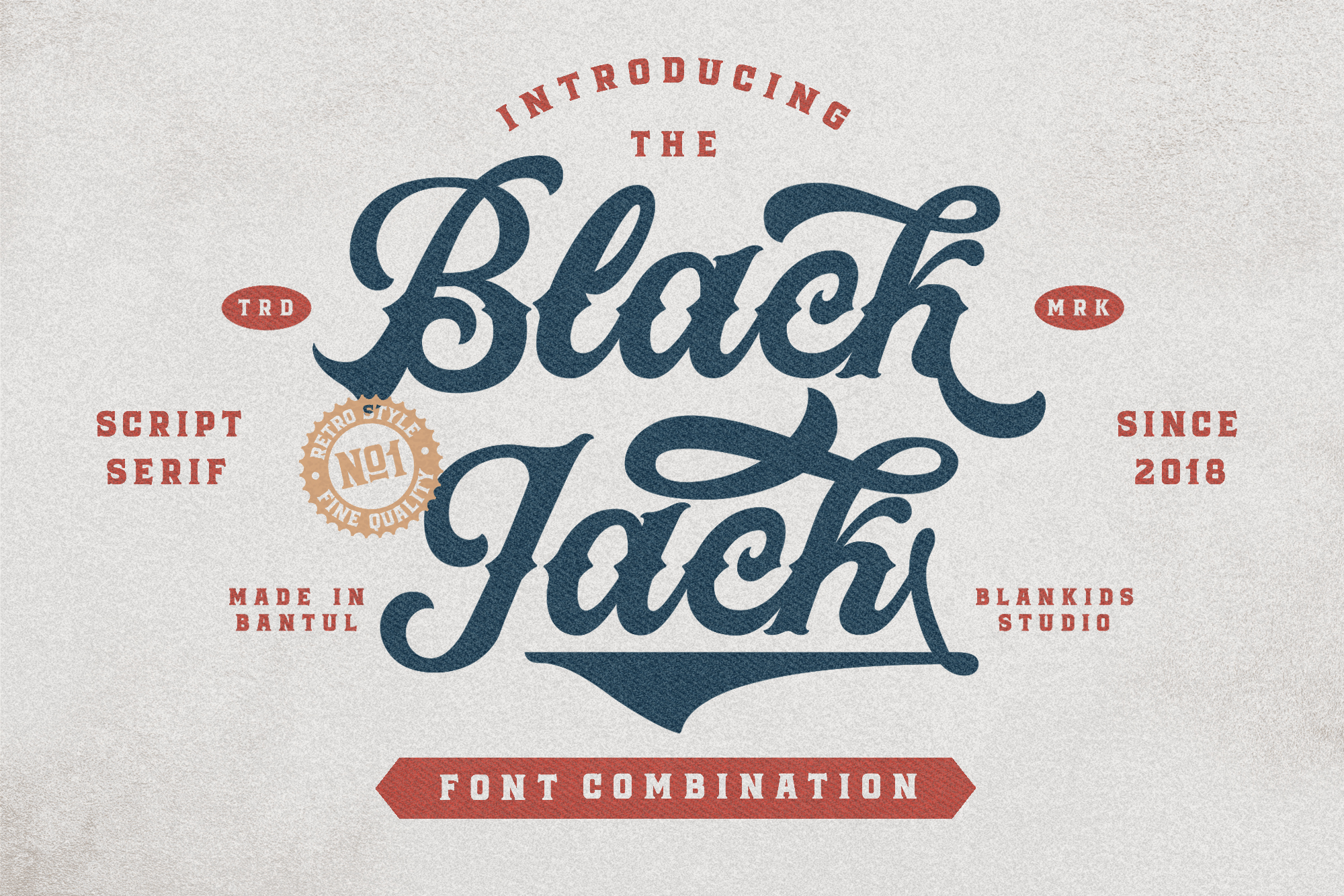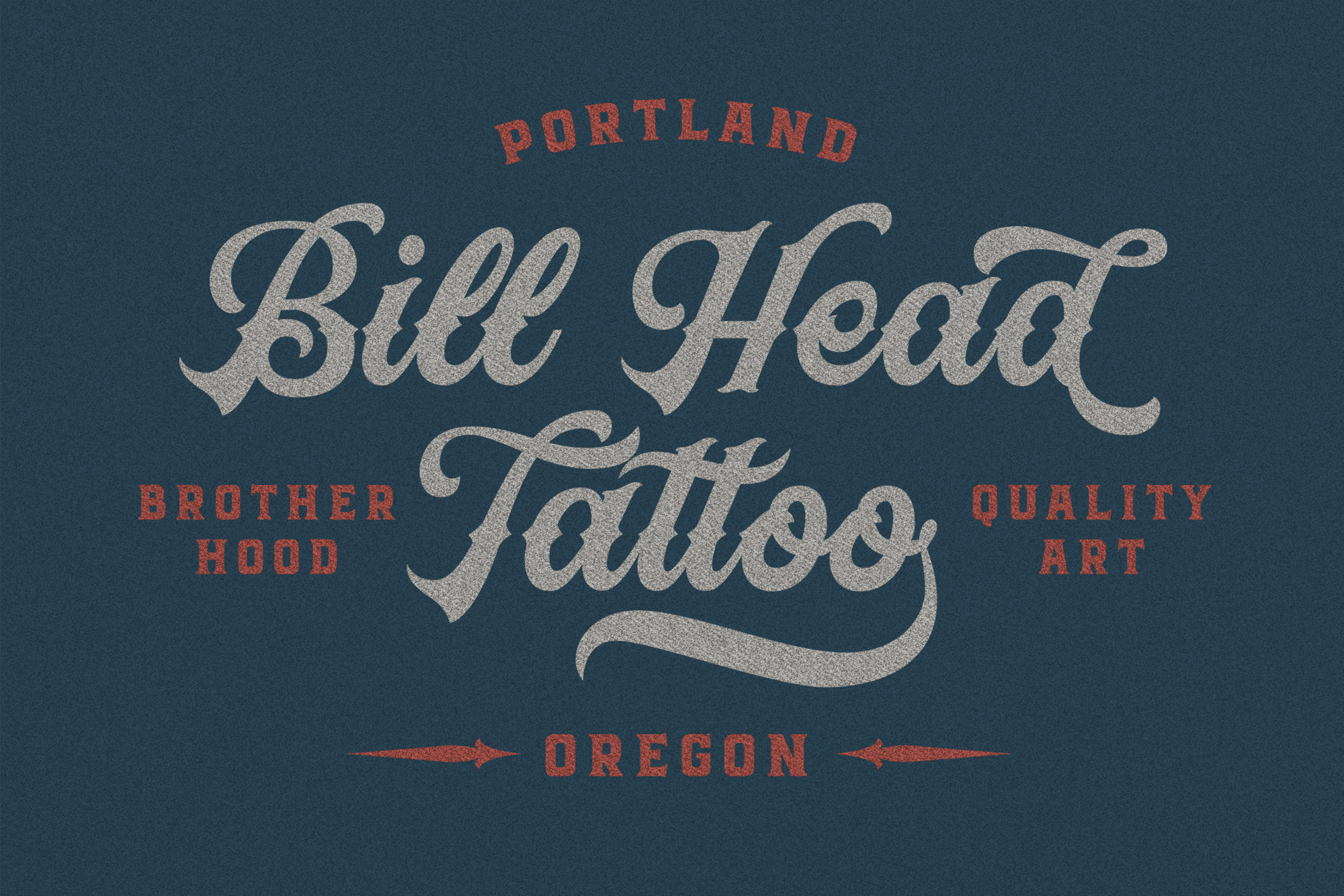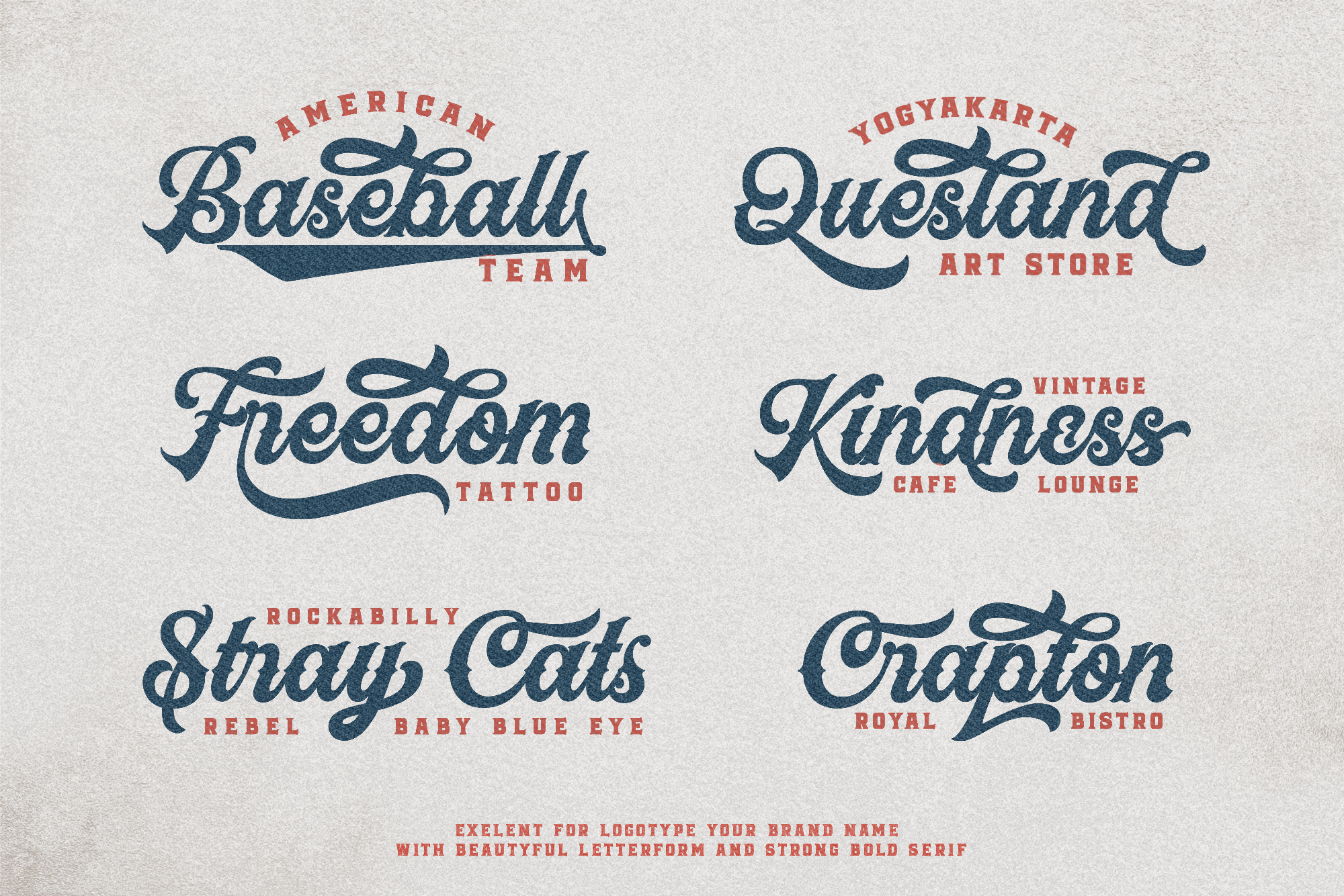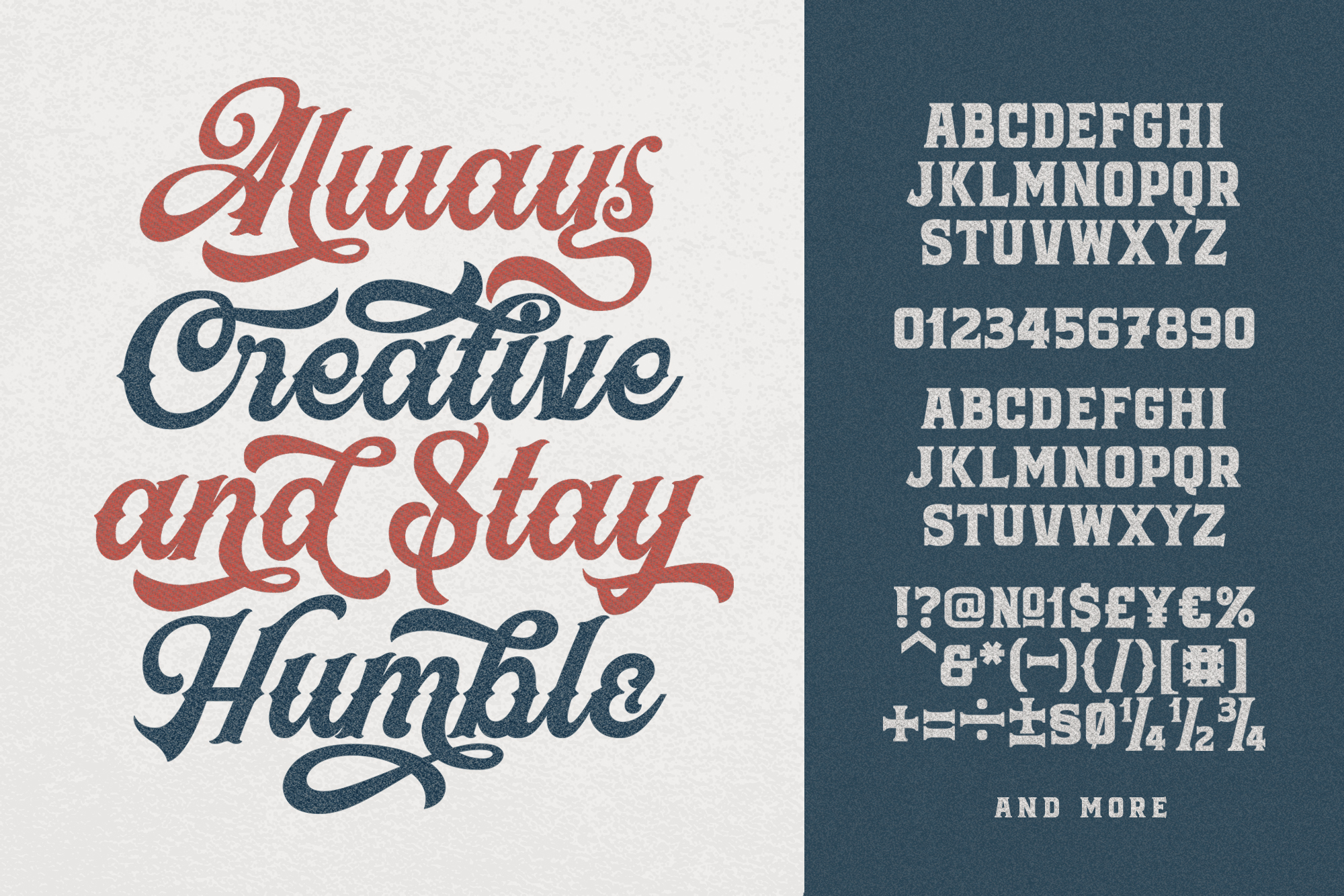
Black Jack Display Font
About the Black Jack Display Font
Add a touch of class to your work with the Black Jack Display Font, a truly exceptional typeface. Black Jack is a jawdroppingly crafted vintage font combination, perfectly styled and executed. This font was inspired by the vintage stylings of posters, badges, and logotypes of years past and is anchored in modernity for a truly refreshing twist on retro typeface.
Black Jack excels as a display font for headlines, logos, and short impactful statements in branding materials and posters. Its strong vintage aesthetic makes it ideal for projects requiring a retro feel with a modern edge—think vintage clothing brands, craft breweries, or retro-inspired gaming projects. Avoid using it for body text or UI elements; its ornate details are too visually demanding for extended reading.
Pairing Black Jack effectively requires considering its bold personality. A clean sans-serif like Montserrat or Open Sans provides a strong contrast and readability for supporting text. For a more vintage-consistent pairing, a classic serif like Playfair Display could enhance its retro charm, though careful consideration of sizing is crucial to avoid visual clutter.
The font’s core personality is bold and assertive yet refined. Its vintage inspiration lends it a sense of nostalgic authenticity, but the execution ensures it remains contemporary and avoids appearing dated.
Black Jack Display Font Usage Examples
Black Jack Display Font Example